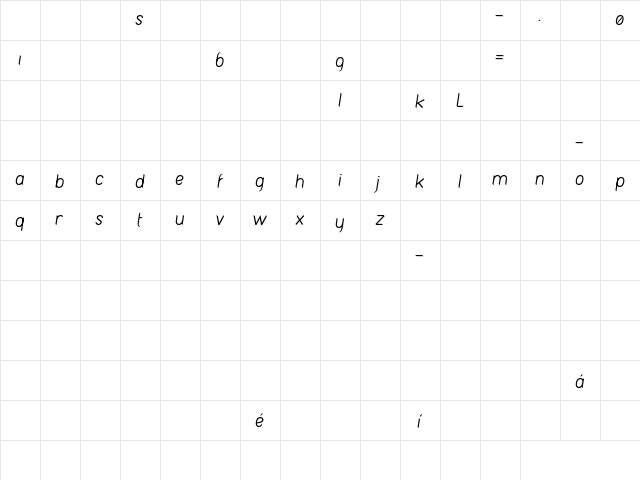
Fashionism Italic
Design Context for Fashionism Typeface
Fashionism offers clean, dependable letterforms without strong stylistic allegiance, making it a practical choice for designers who need flexibility. The dynamic lean of this cut emphasises speed and emphasis in any layout.
Pro Tip: Try Fashionism for annotation and caption copy alongside an upright companion — the contrast in angle creates a dynamic but ordered typographic system.